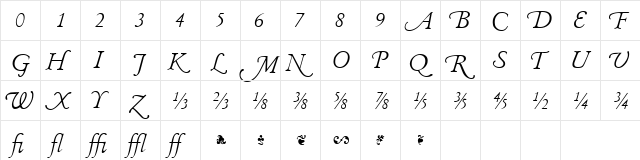
Garamand Classic Extras Light Italic Font Preview
Design Context for Garamand Classic Extras Light Typeface
Garamand Classic Extras Light wears its vintage influences proudly, with letterforms that recall mid-century signage, classic packaging, and nostalgia-driven design. The slanted form adds forward momentum and visual energy. The delicate stroke weight brings airiness and refinement to layouts.
Font Pairing: Combine Garamand Classic Extras Light with a simple slab or neutral sans — period-accurate companions reinforce the vintage feel without competing for attention.
Pro Tip: Use Garamand Classic Extras Light for headlines and pull quotes rather than body copy — its personality is best appreciated in short, focused bursts.